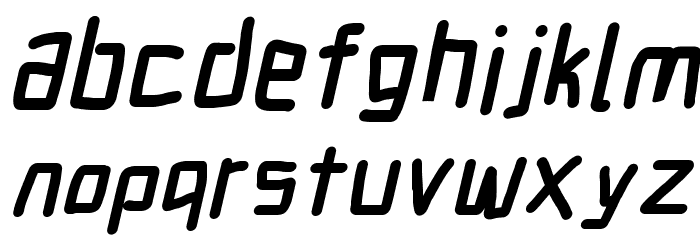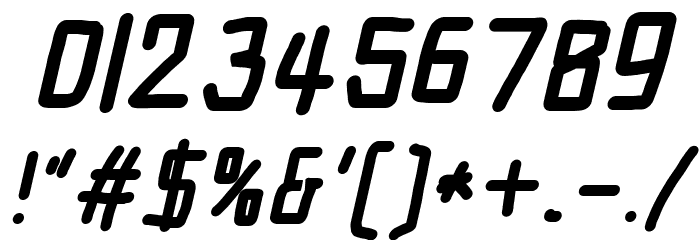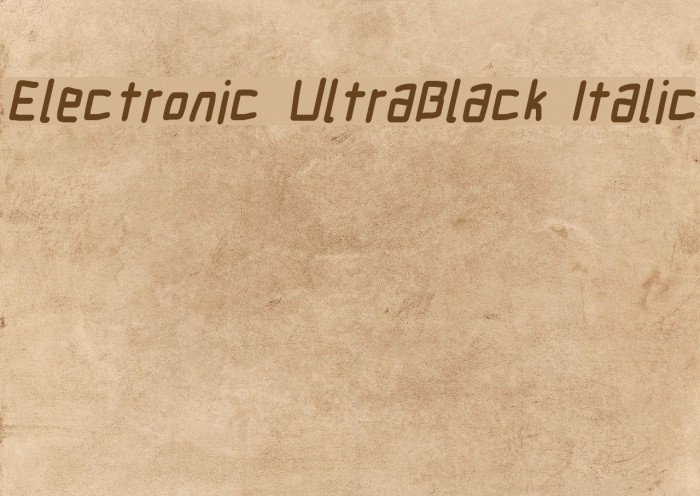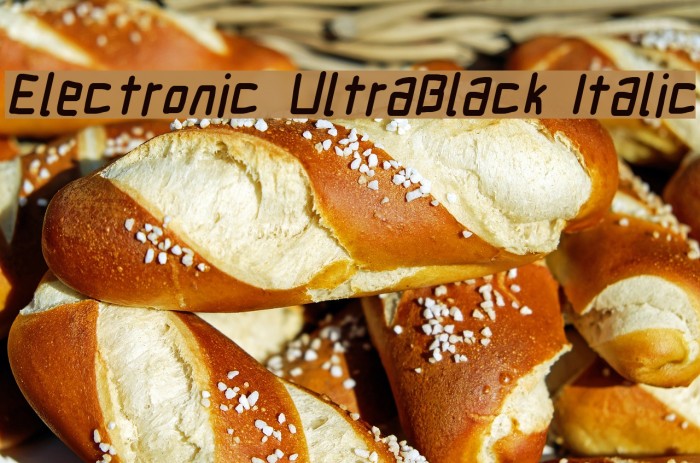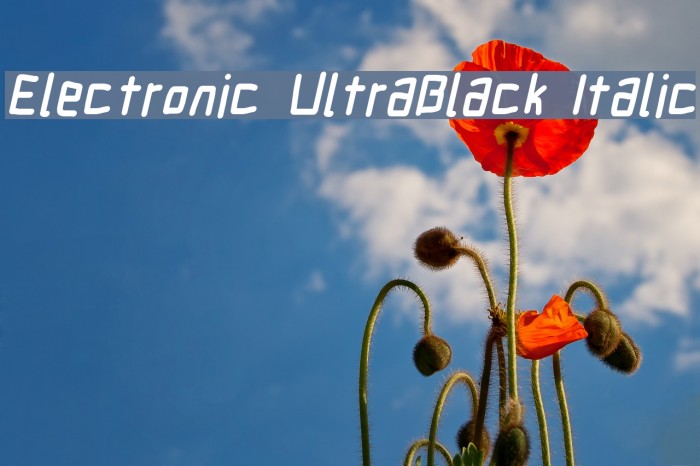
Electronic UltraBlack Italic Font
This font features a bold and italicized style with a modern, electronic aesthetic. The characters are slightly slanted, giving a sense of motion and dynamism. The strokes are thick and consistent, providing a strong visual impact. The design is clean and geometric, with rounded edges that soften the overall appearance. The uppercase and lowercase letters maintain a uniform width, while the numerals and special characters are designed to match the boldness and style of the alphabet. This font is ideal for projects that require a futuristic or tech-inspired look.
A bold, italicized font with a modern, electronic style.
- Proposed Projects: Ideal for tech branding, futuristic posters, digital interfaces, and gaming graphics.
- Use Case: Headlines, Logos, Digital interfaces